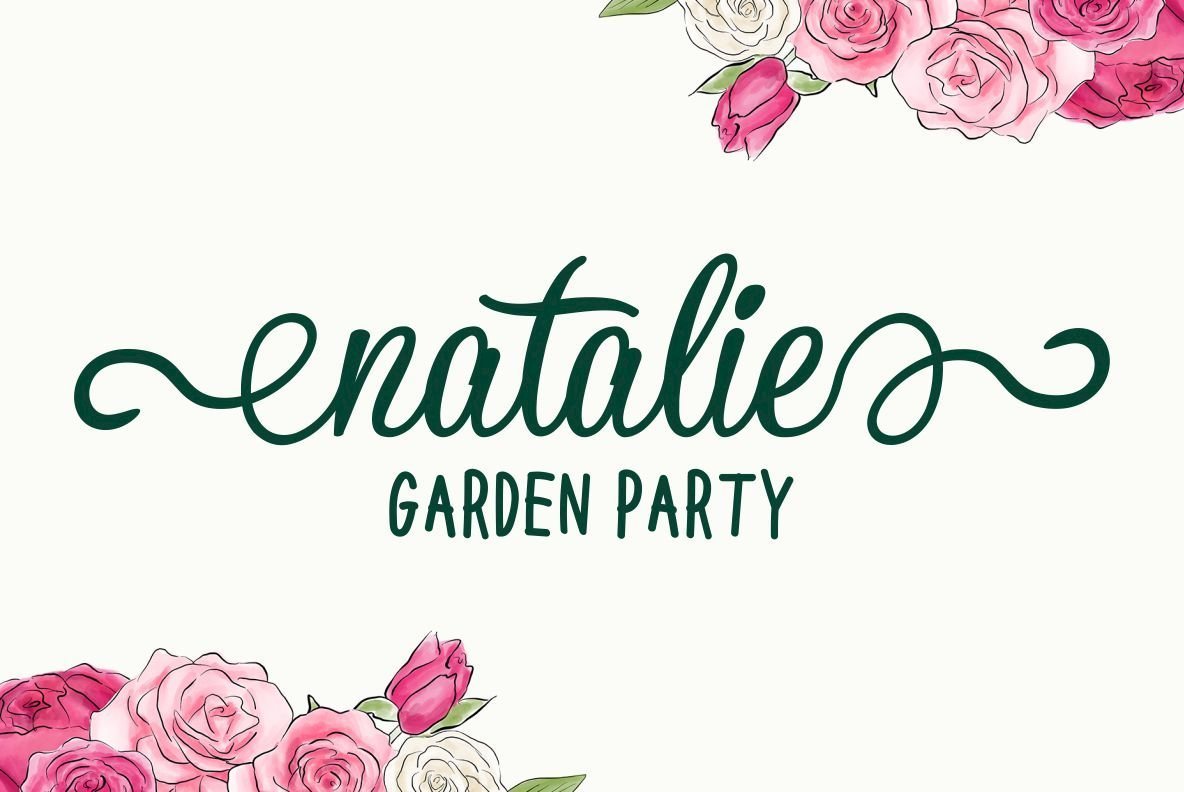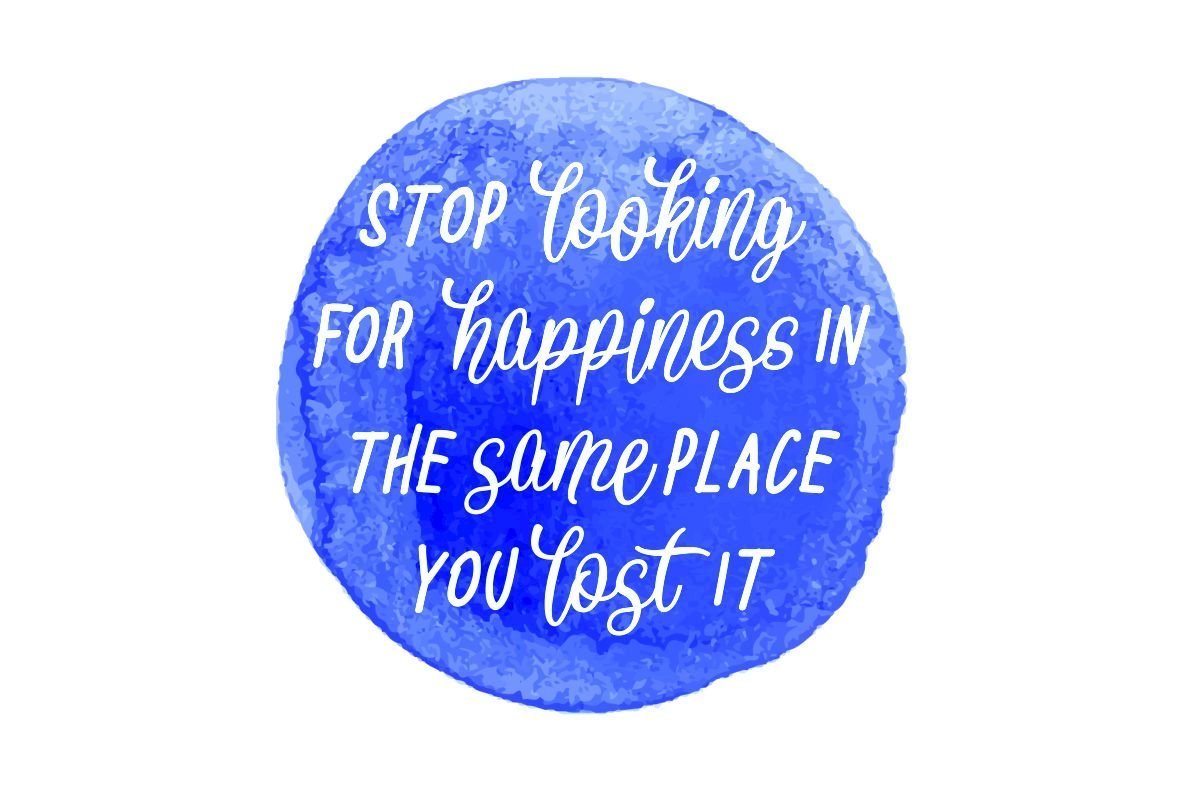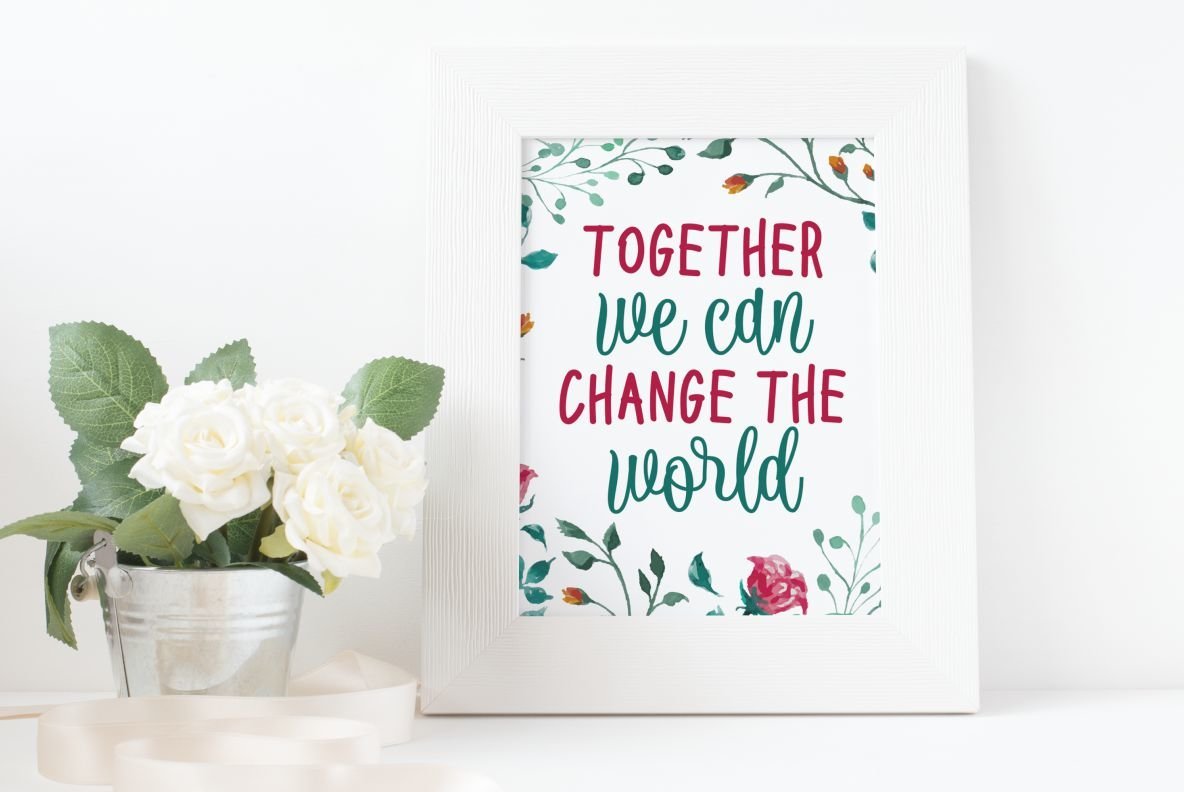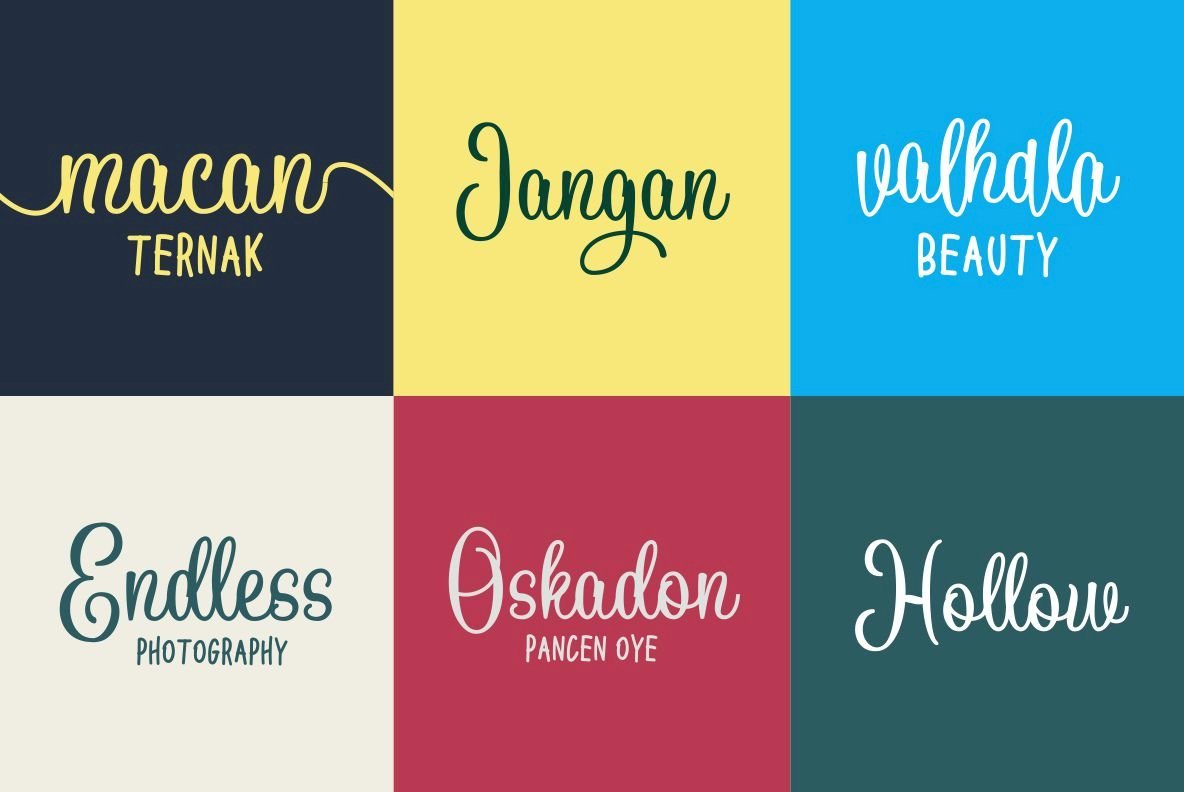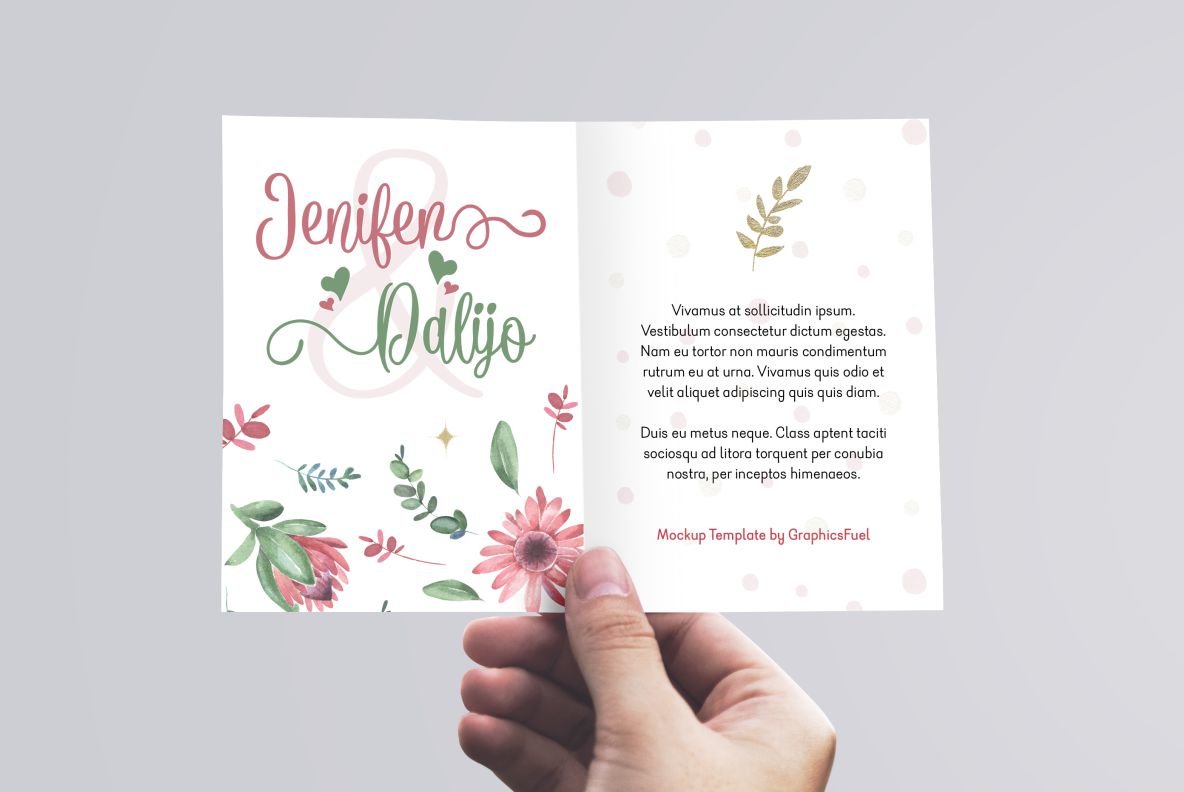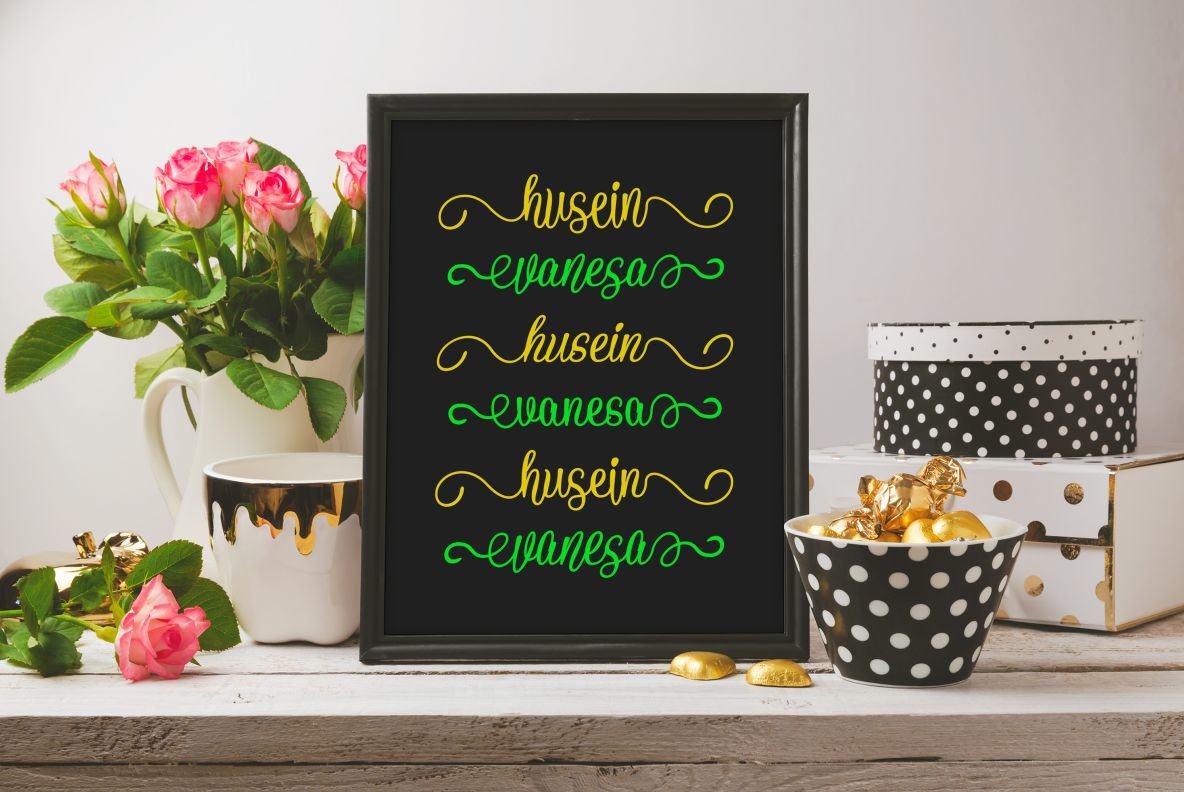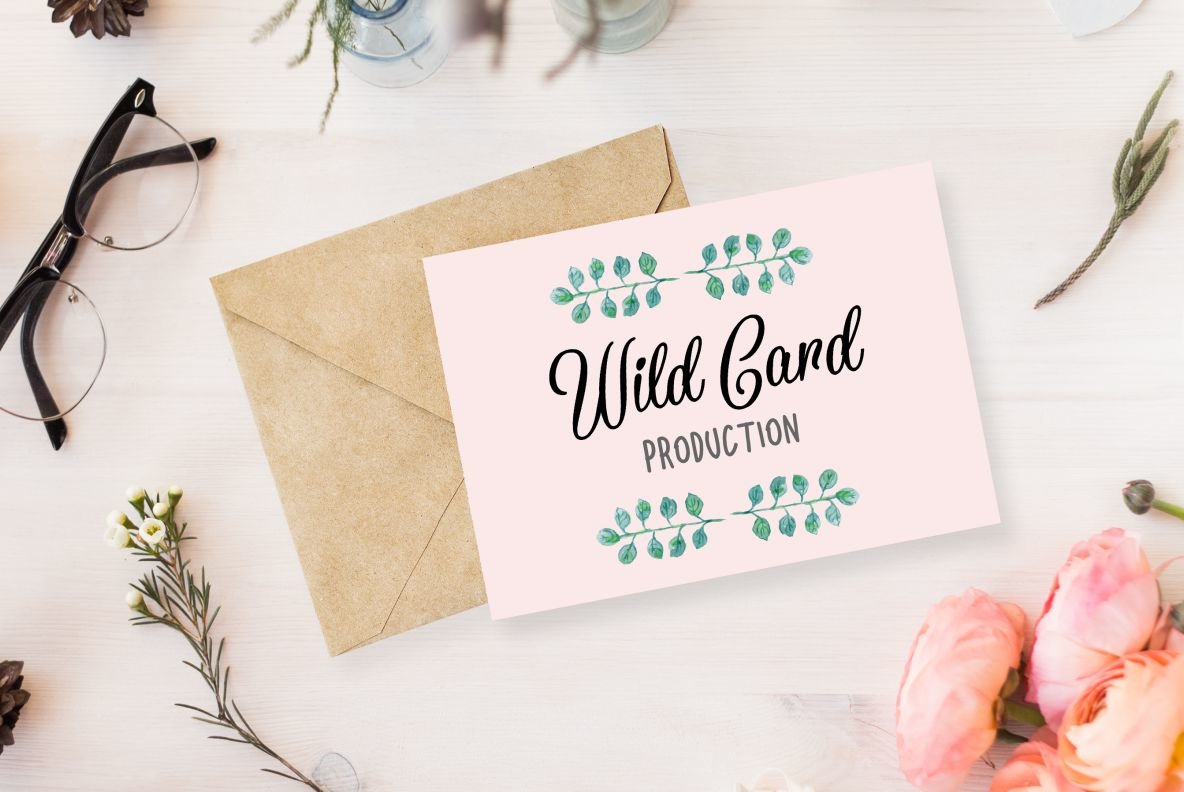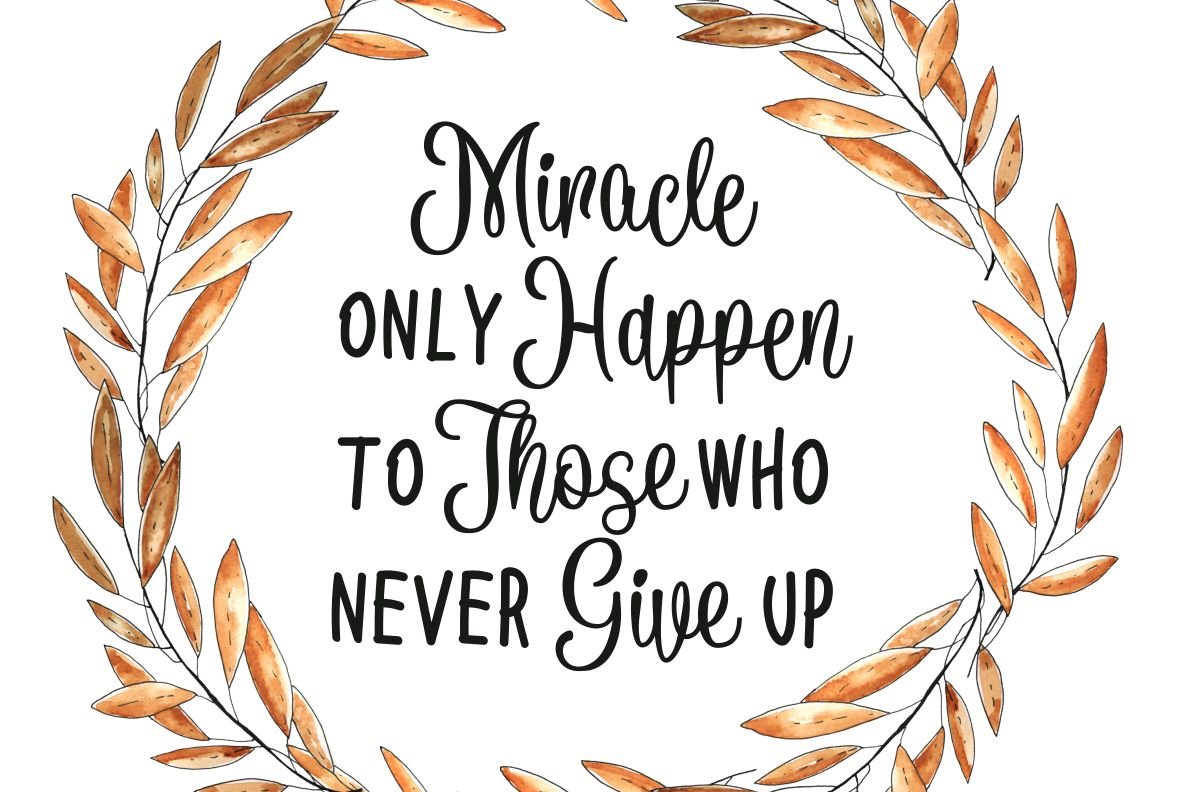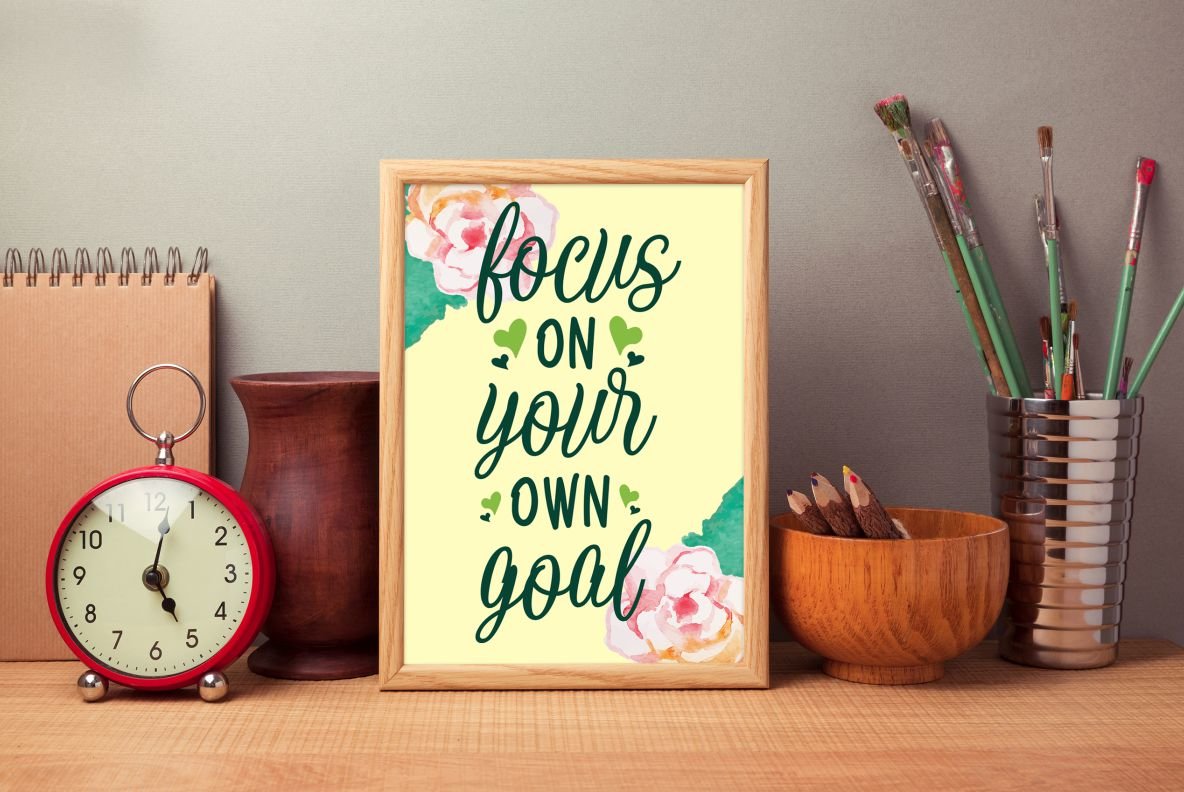
Battallion Duo Font
Battallion Duo by Subqi Std offers a versatile typeface solution, merging traditional serif elements with contemporary aesthetics. This dual typeface is perfect for graphic designers seeking a balance between elegance and modernity in their projects. Ideal for creative professionals, the Battallion Duo offers a robust choice for a variety of design endeavors, ensuring a memorable visual impact.Battallion Duo: Dynamic Typeface for Modern Design